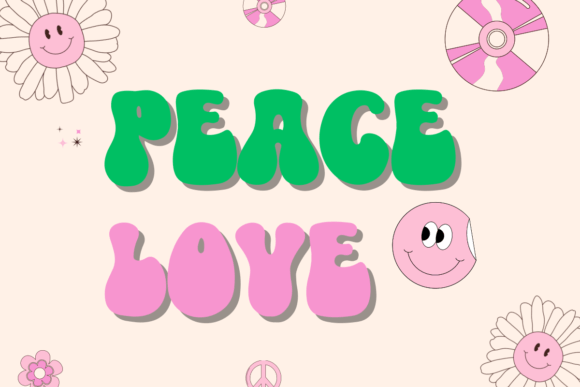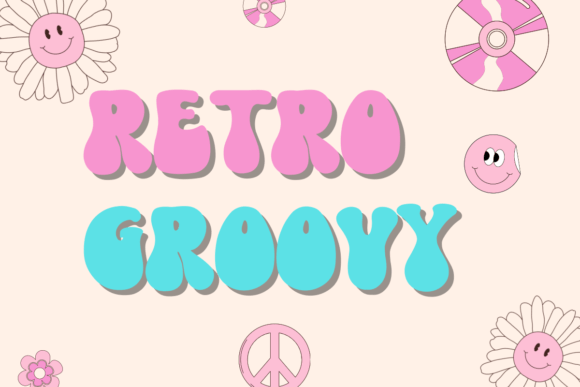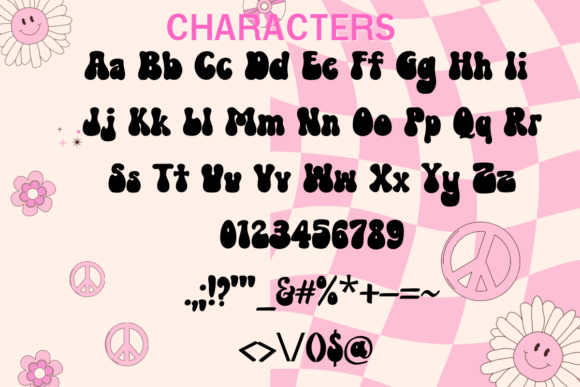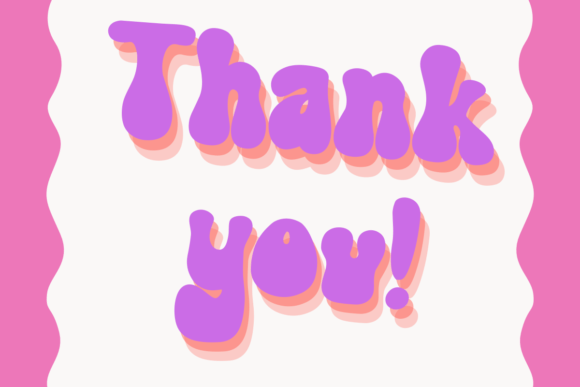
Introduction to Groovy Good Font Font
Fonts play a crucial role in design, and the Groovy Good Font font is a typeface that brings both character and versatility to any project. Whether you’re working on a branding project, a website, or a print design, the Groovy Good Font font offers a unique style that can elevate your work.
| 📌 Font Name | Groovy Good Font |
| 👤 Author | Digital Creative Art |
Groovy Good is a sweet and friendly handwritten display font.
Cute and fun, this font is ideal for crafts, digital design, presentation or writing wedding invitation, cards, or any other design that might need a fun touch It is ideal for use in school for both teachers and students.
Key Features of Groovy Good Font Font
Why Choose Groovy Good Font Font?
The Groovy Good Font font is more than just a typeface – it’s a design tool that helps you communicate your message with style and clarity. Its unique character set and versatile design make it suitable for a wide range of applications, from elegant invitations to bold headlines.
With its carefully crafted letterforms and balanced proportions, the Groovy Good Font font ensures readability and visual appeal across all mediums.
What makes Groovy Good Font font special?
The Groovy Good Font font stands out with its unique design, exceptional readability, and versatility across various design applications.